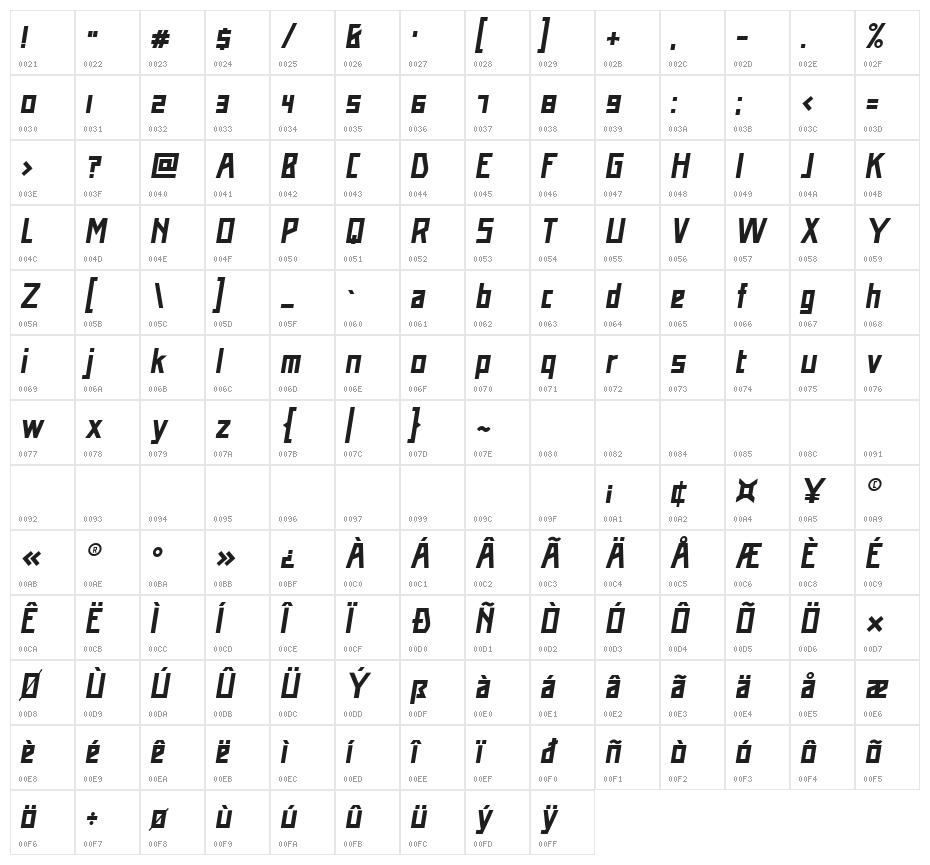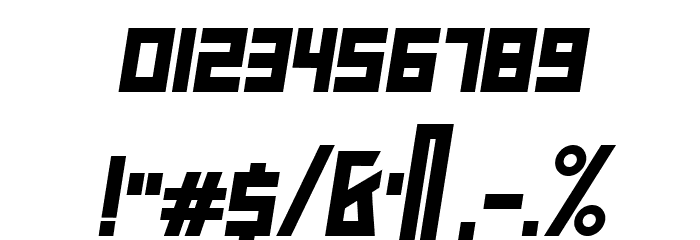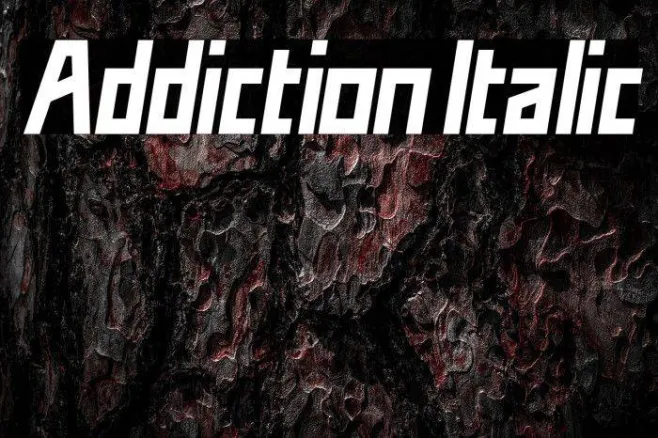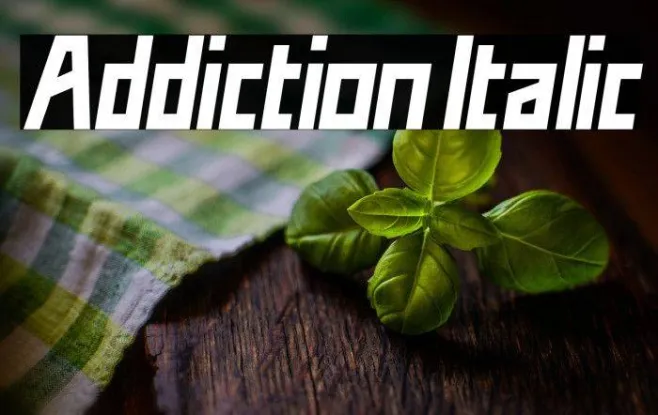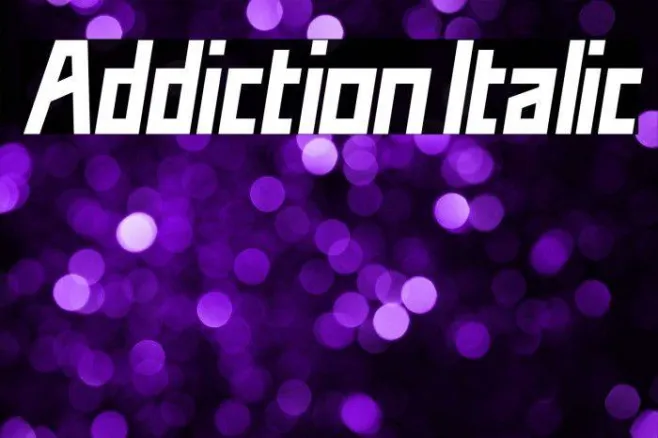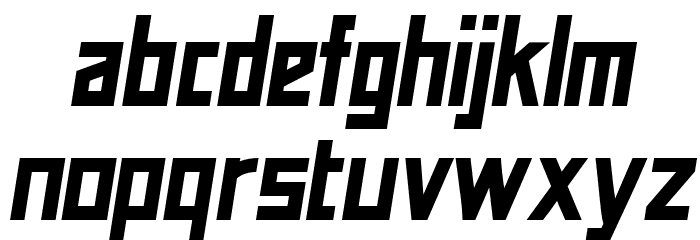
Addiction Italic Font
Addiction Italic Description
This font features a bold and dynamic italic style with sharp, angular edges and a forward-leaning posture. The uppercase and lowercase letters maintain a consistent slant, giving the text a sense of motion and urgency. The numerals and special characters follow the same angular design, ensuring uniformity across all glyphs. This font's strong geometric shapes and slanted orientation make it stand out, offering a modern and edgy appearance that is both eye-catching and assertive.
| Proposed Projects | Ideal for sports branding, dynamic posters, video game titles, and any project requiring a bold, energetic look. |